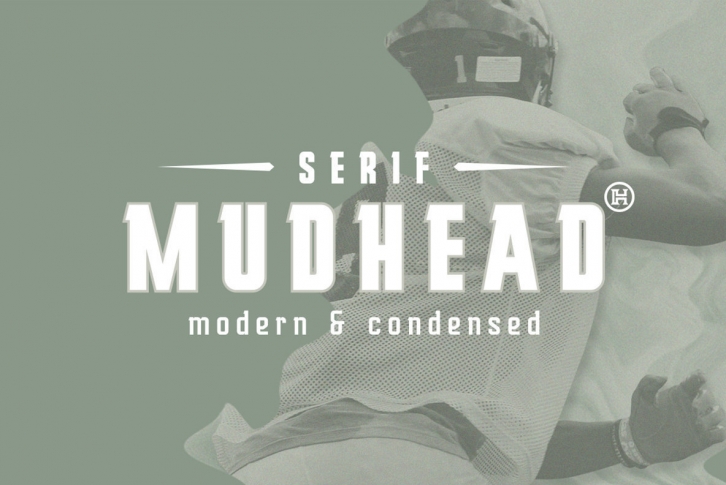
Mudhead is an industrial, condensed and vintage sans serif font. It has 252 glyphs and supports multiple foreign languages. Is perfect for vintage logo designs, headers, small and block text. It contains an uppercase and lowercase alphabet with numbers and symbols.